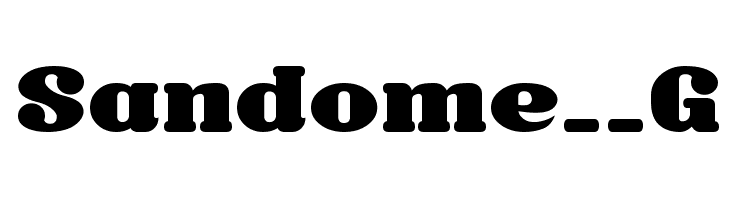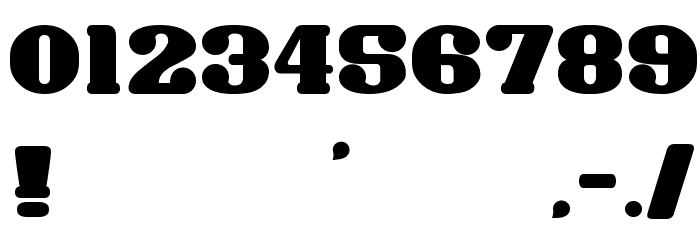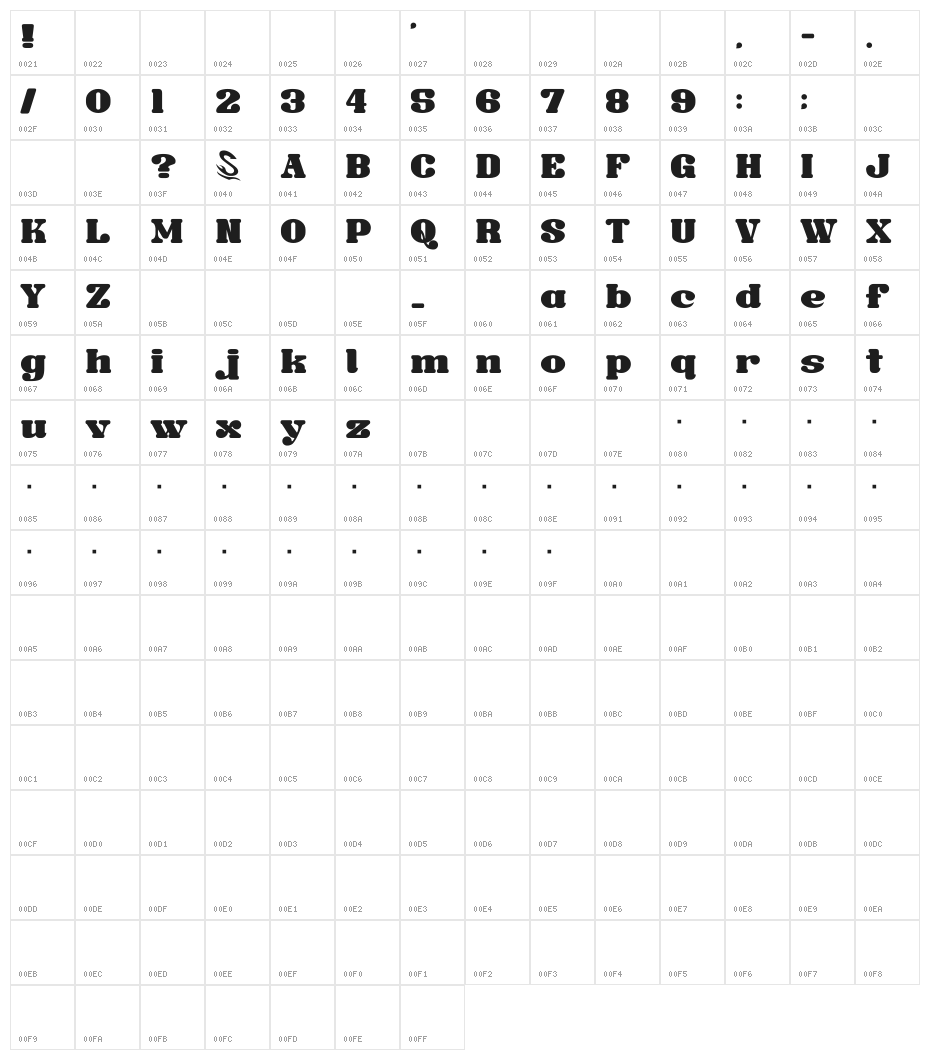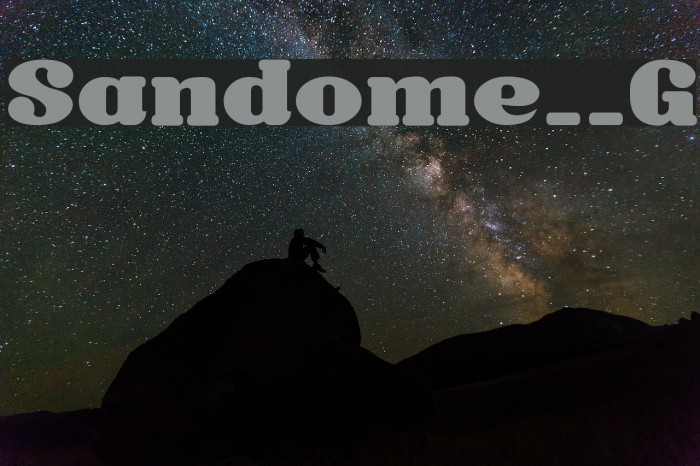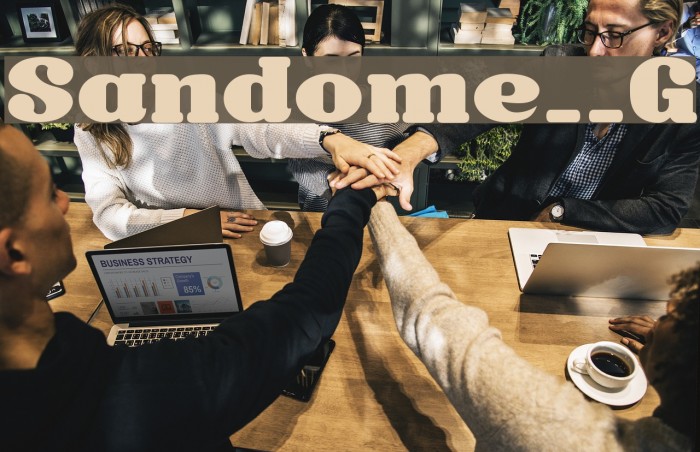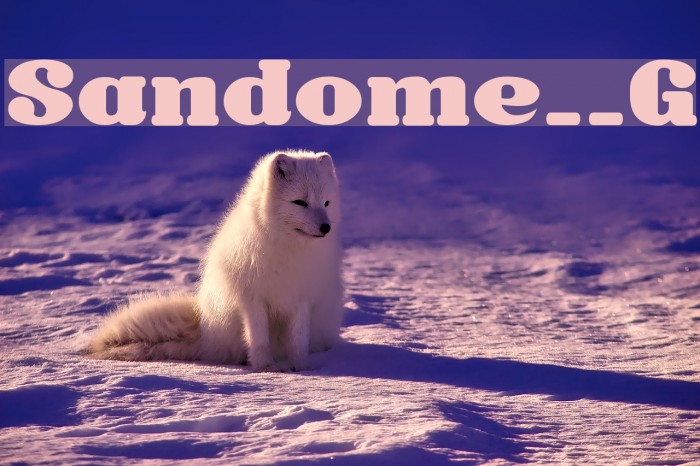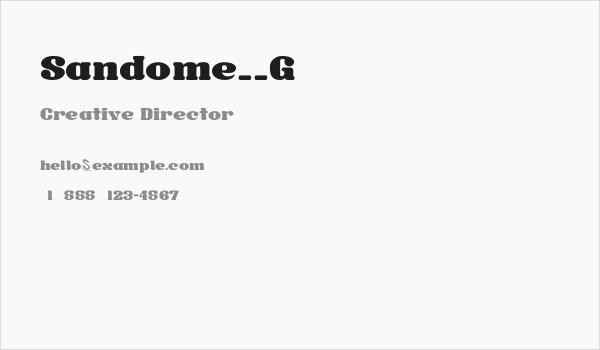
Sandome__G Font
Sandome__G Description
This font features bold, rounded characters with a playful and robust appearance. The uppercase letters are particularly striking, with thick strokes and a slight curvature that adds a touch of whimsy. The lowercase letters maintain the same boldness, ensuring consistency across the typeface. Numbers are equally bold, making them stand out prominently. The special characters are designed to match the overall style, with a similar thickness and rounded edges. This font is ideal for projects that require a strong, eye-catching display typeface.
| Overall Style | Playful, Robust |
| Proposed Projects | Ideal for posters, headlines, branding, and any design that requires a strong, attention-grabbing typeface. |